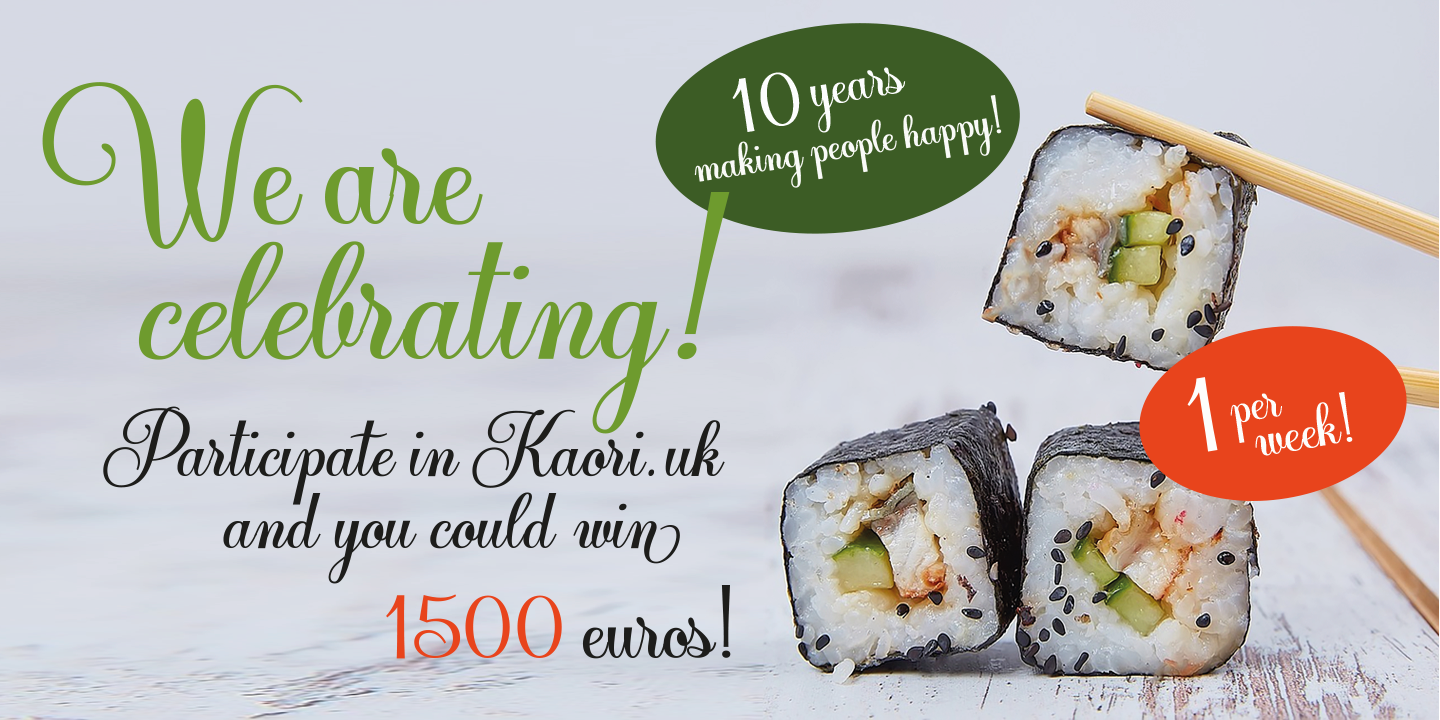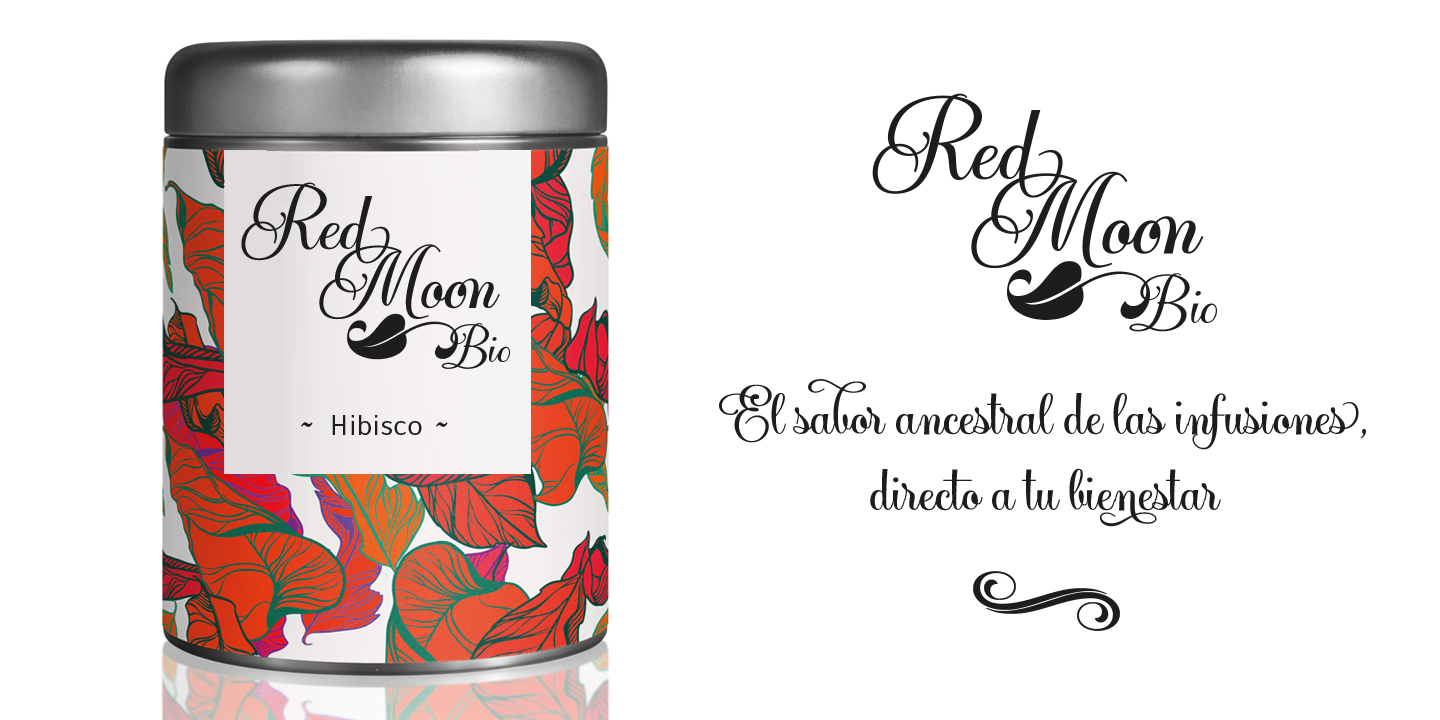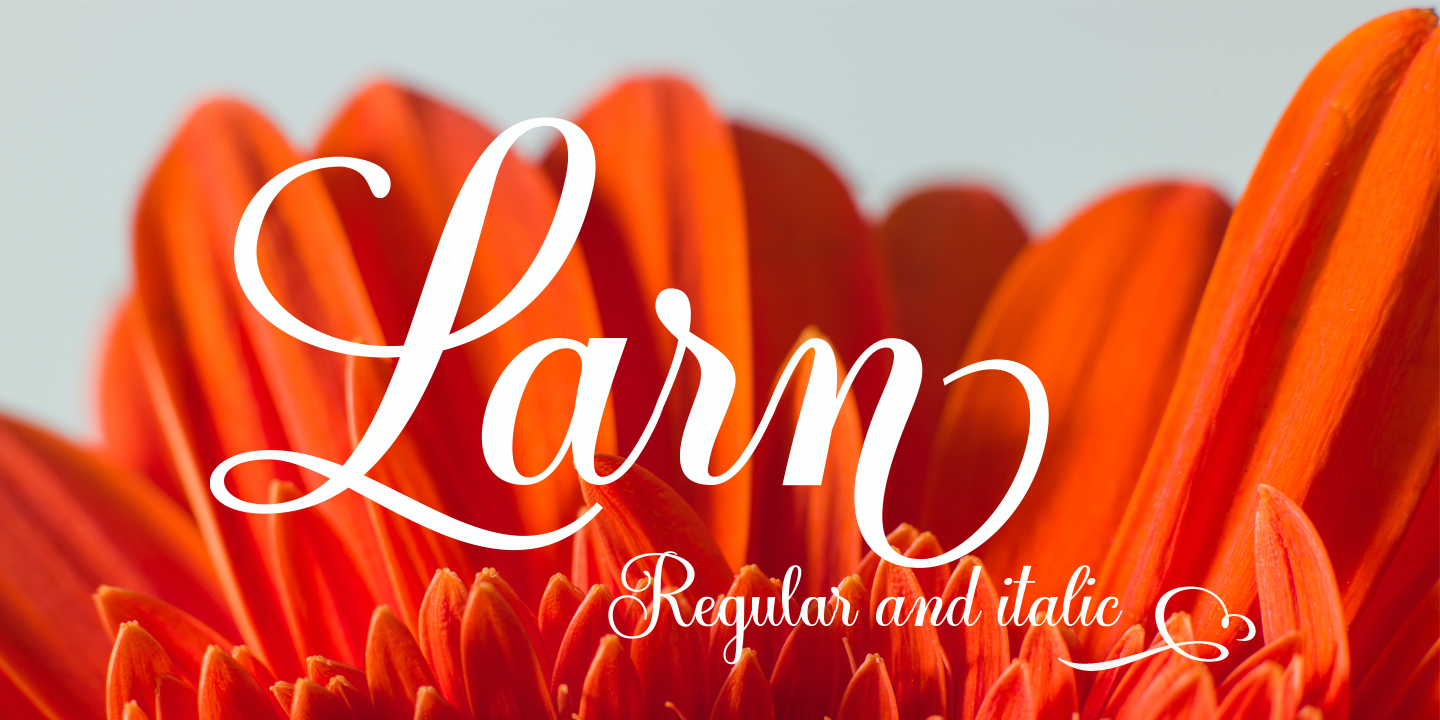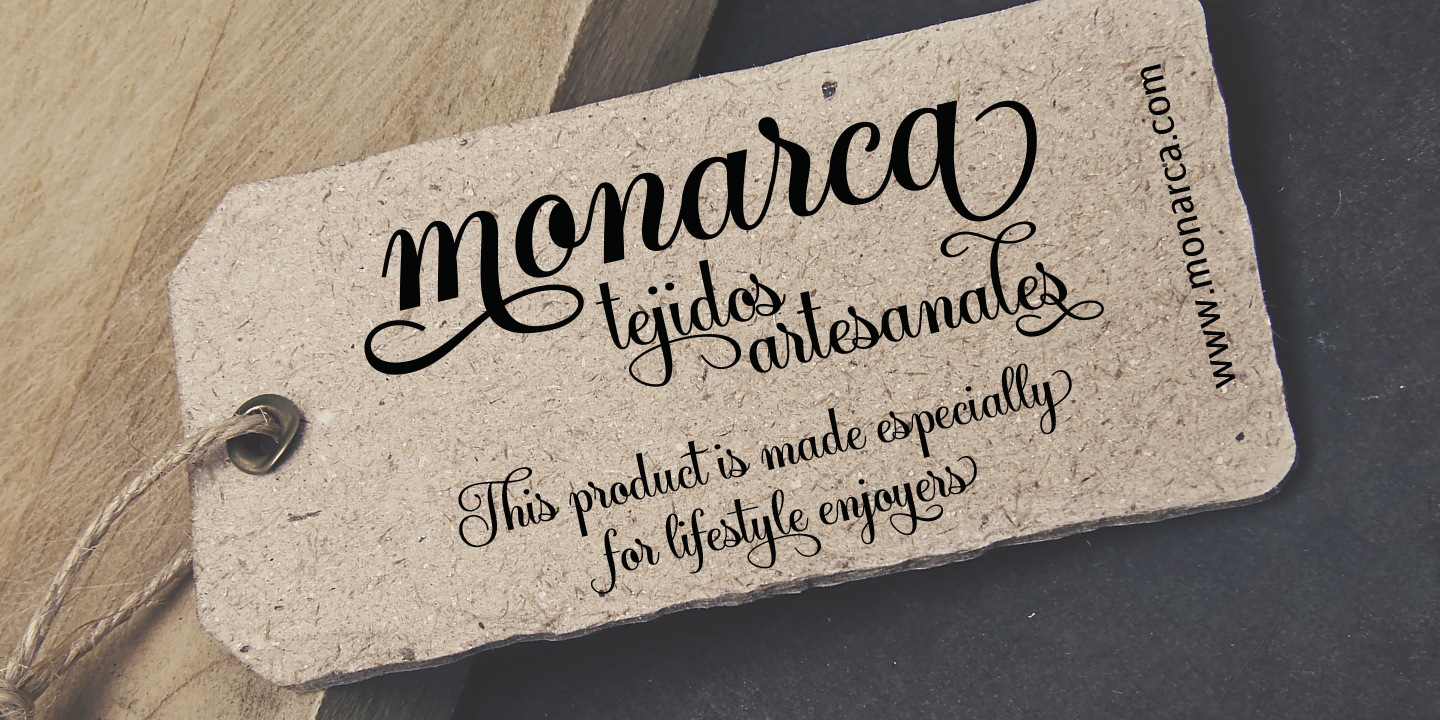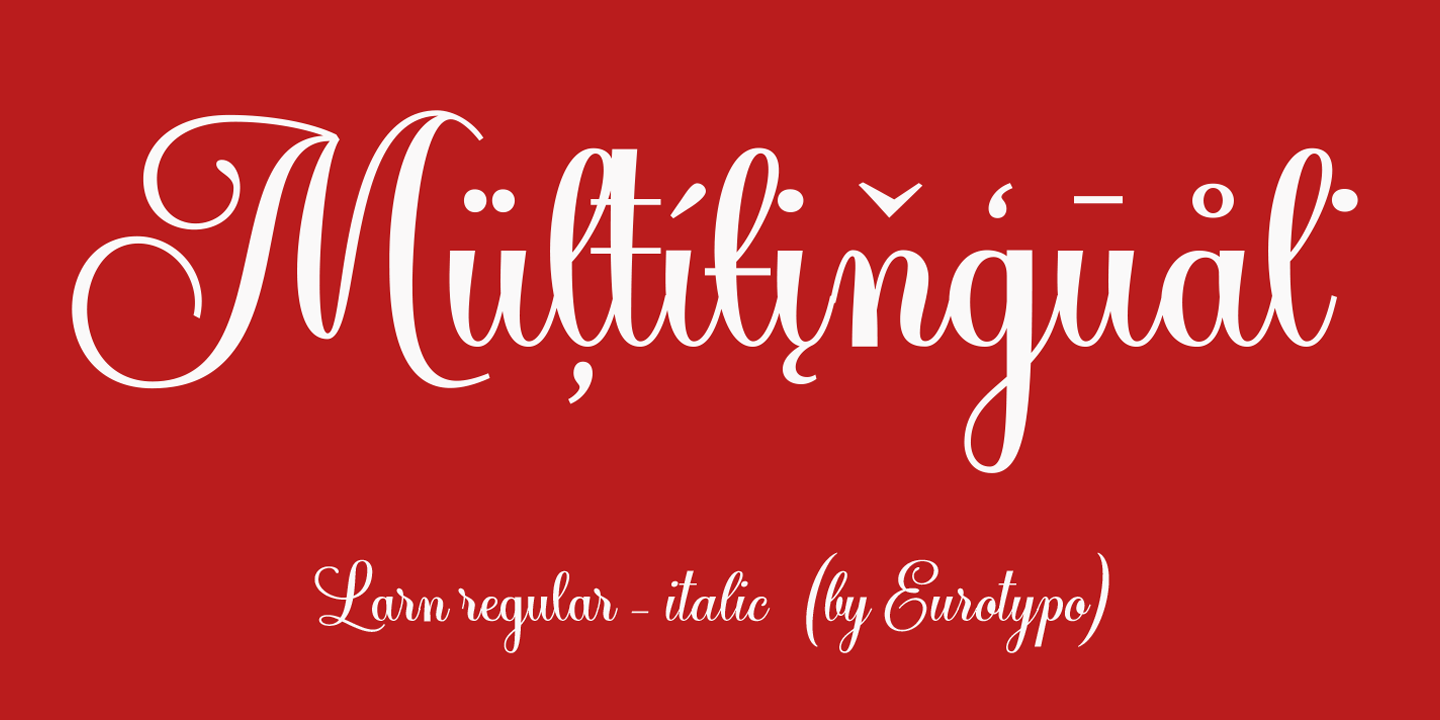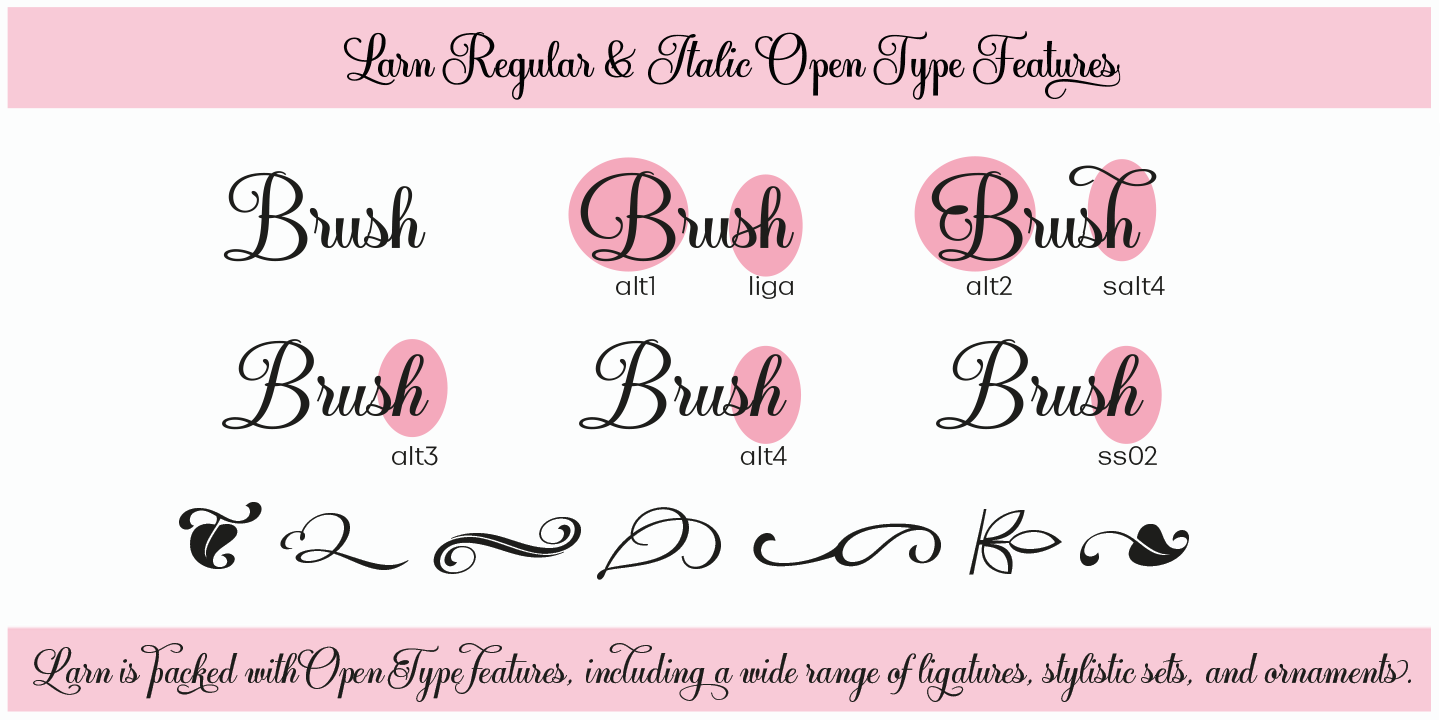
Larn
Carine de Wandeleer
A Fresh & Casual Calligraphic Script
Larn is a fresh and charming calligraphic font family designed by Carine de Wandeleer. With a casual, organic style and character, Larn strikes the perfect balance between elegance and playfulness.
Extensive OpenType Features & Ornaments
This font family includes both regular and italic styles, packed with extensive OpenType features and Central European language support. Every letter is crafted with multiple stylistic alternates, unique ligatures, and a full set of ornaments, giving you the tools to boost your creativity and produce stunning typographic work.
Ideal for Weddings & Lifestyle Branding
Perfect for wedding invitations, greeting cards, branding, logos, business cards, fashion projects, editorial layouts, packaging, menus, book covers, and anything else your imagination can dream up! Get inspired with Larn, and turn your ideas into unforgettable designs!